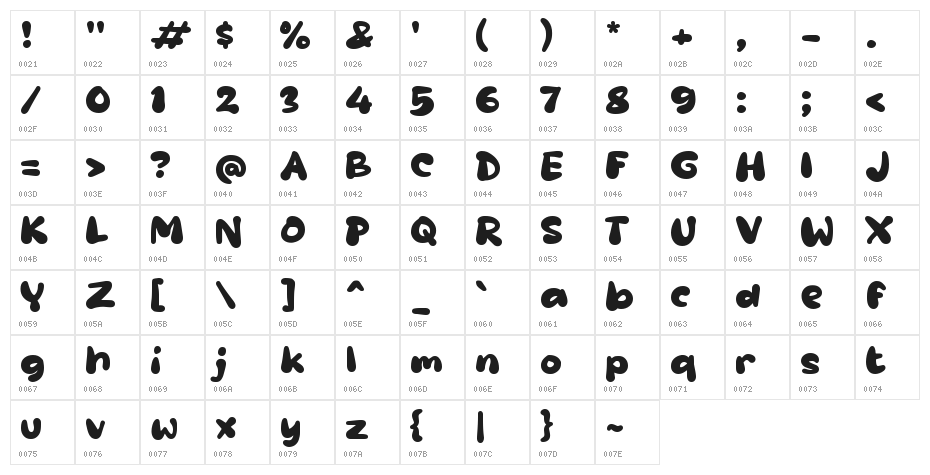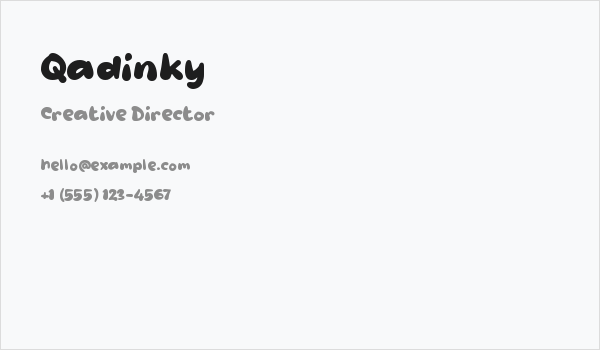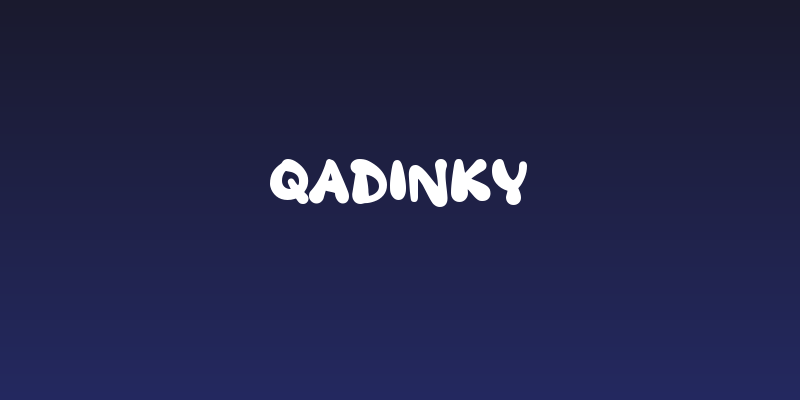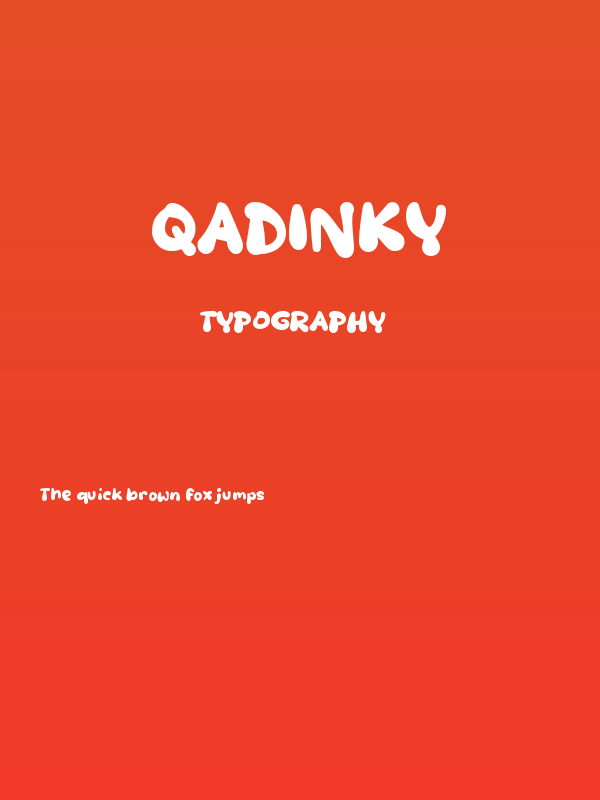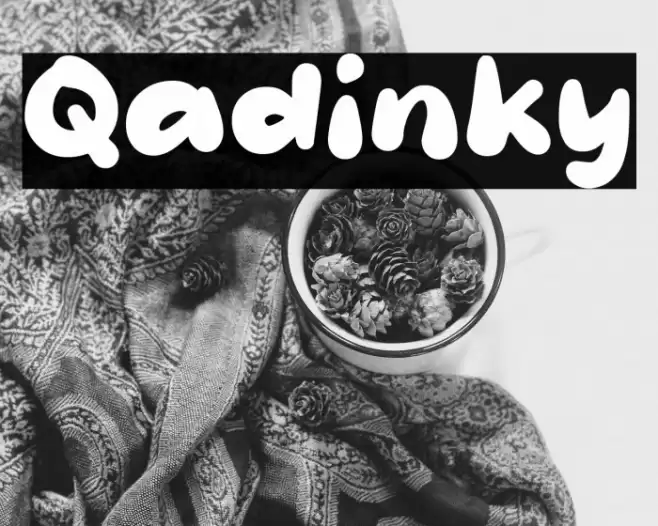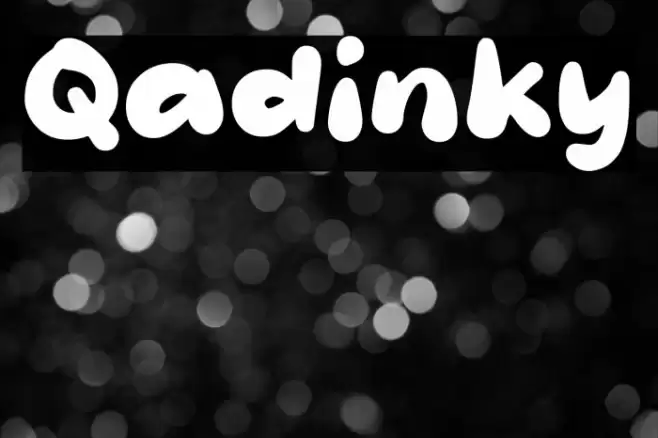
Qadinky Font
Qadinky Description
A playful, rounded, and bold display font with a casual, handwritten style.
| Overall Style | Casual, Playful, Handwritten |
| Use Case | Headlines, Posters, Logos, Branding |